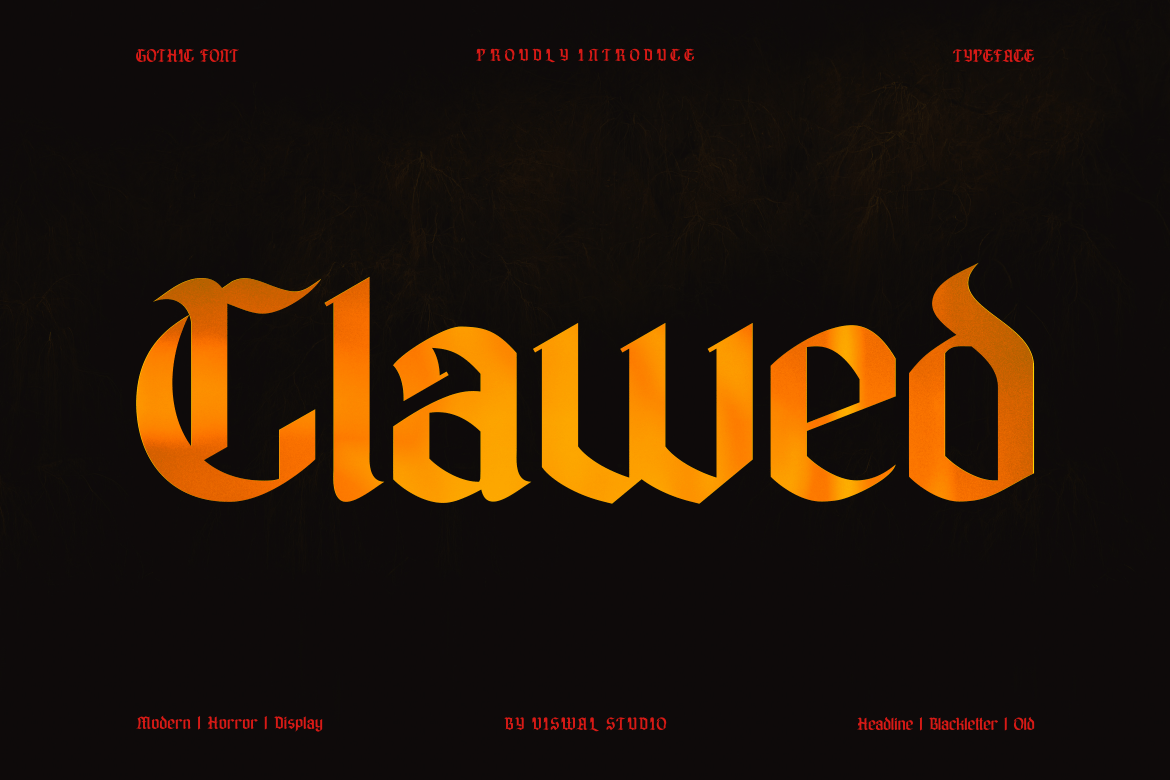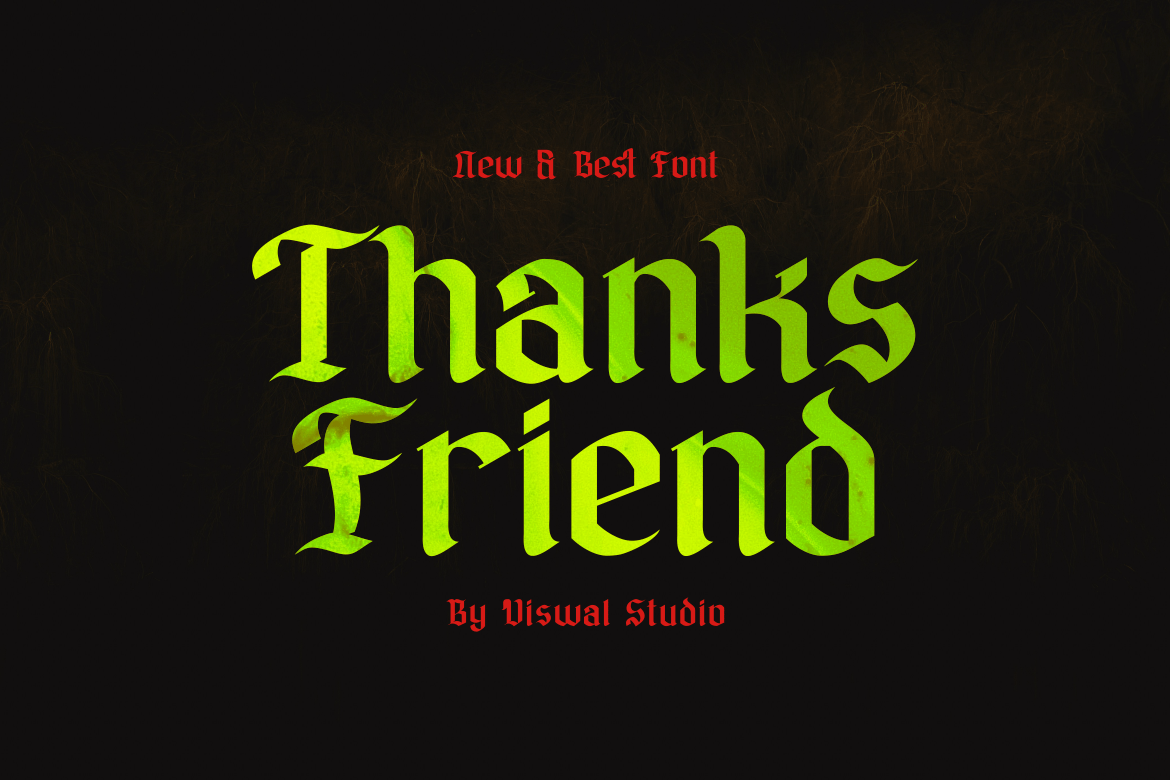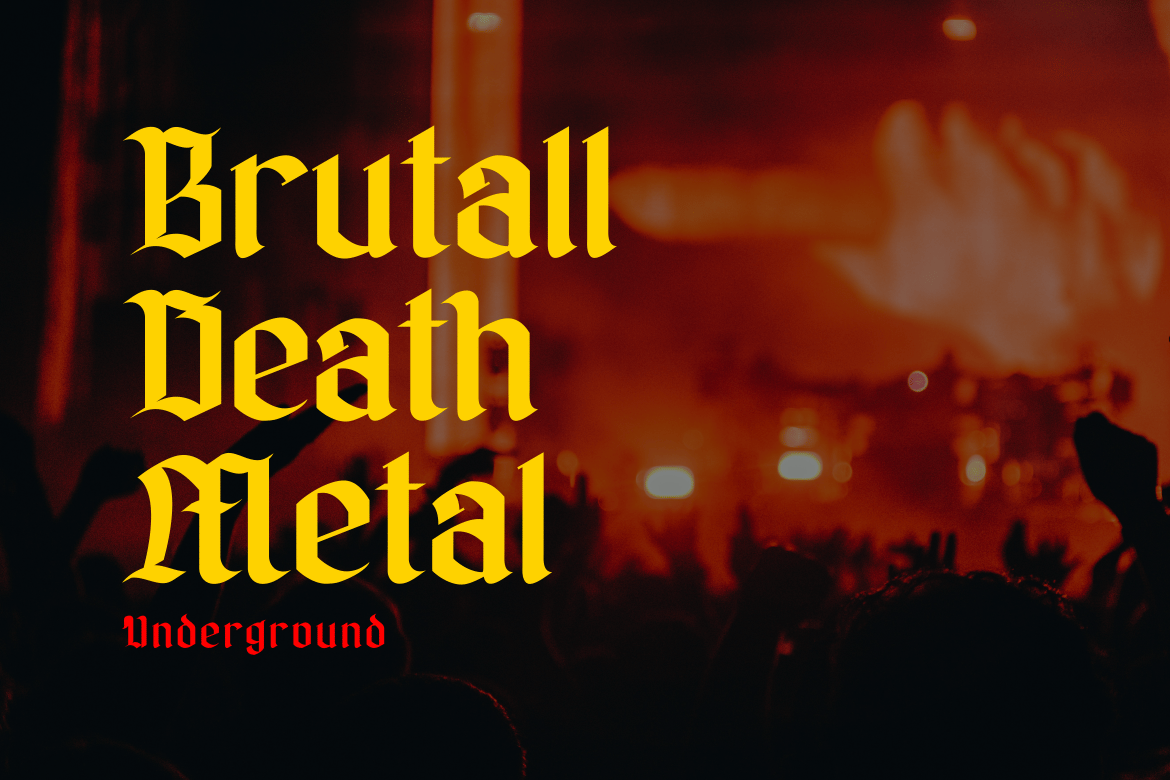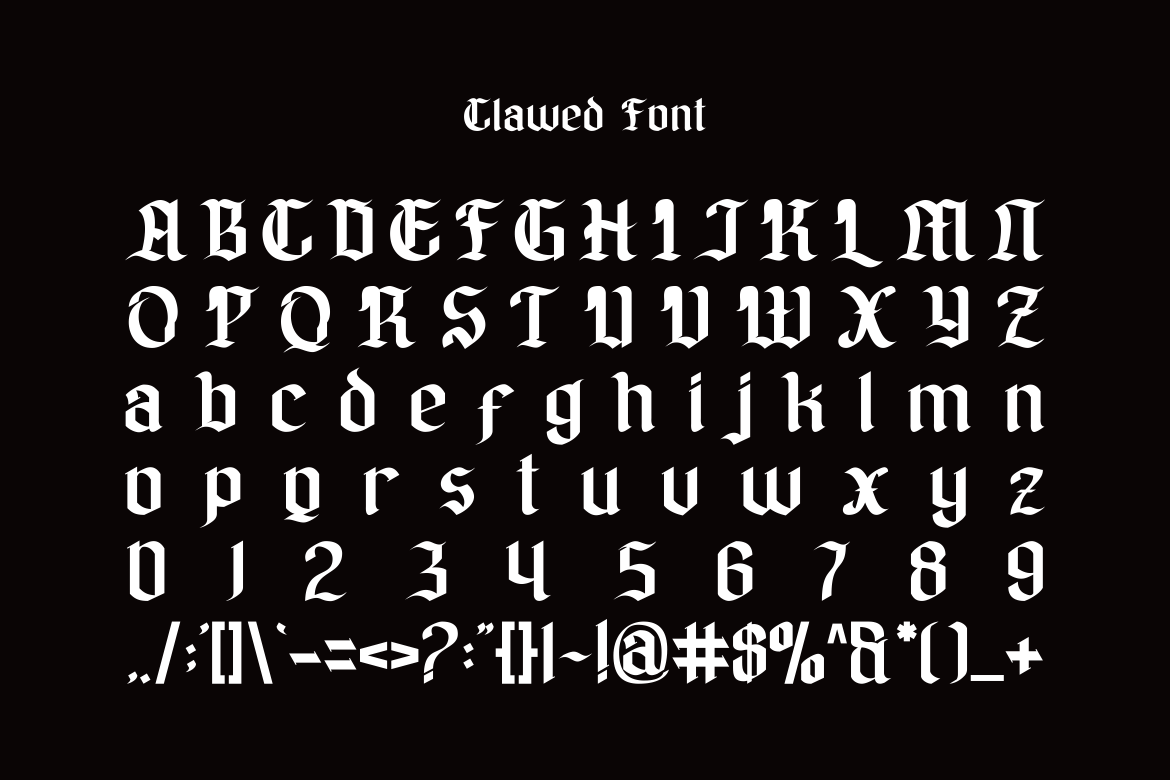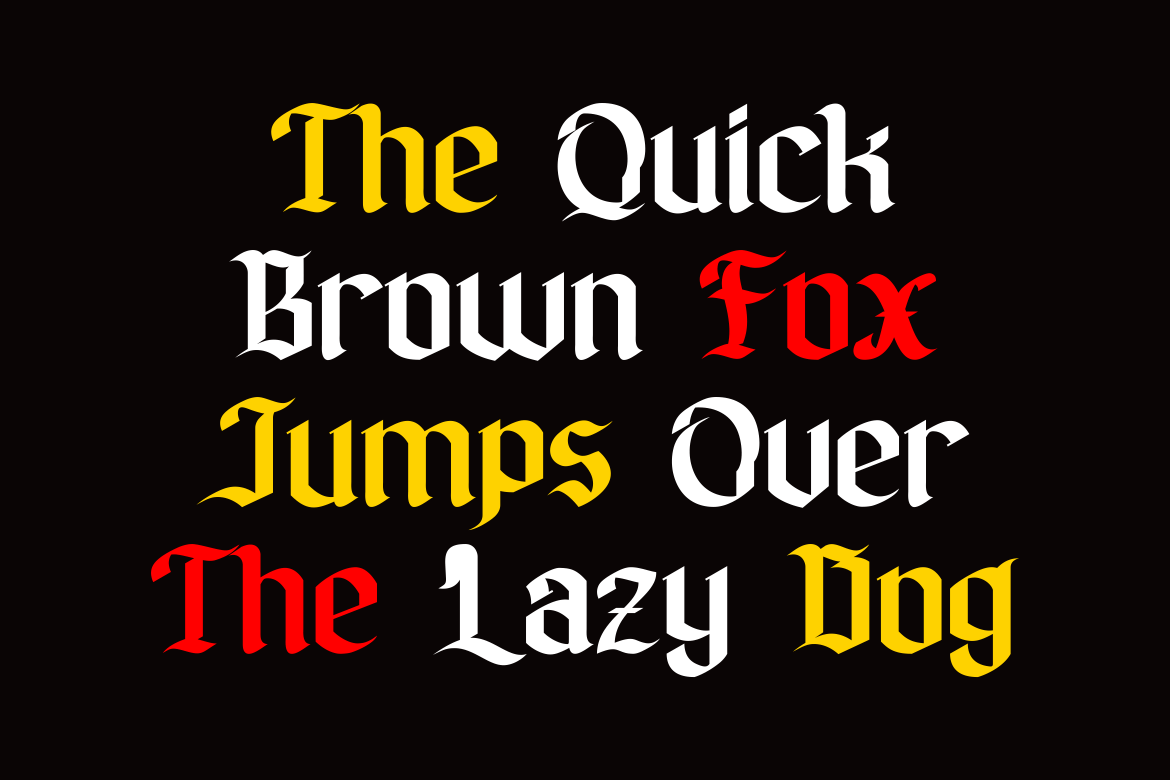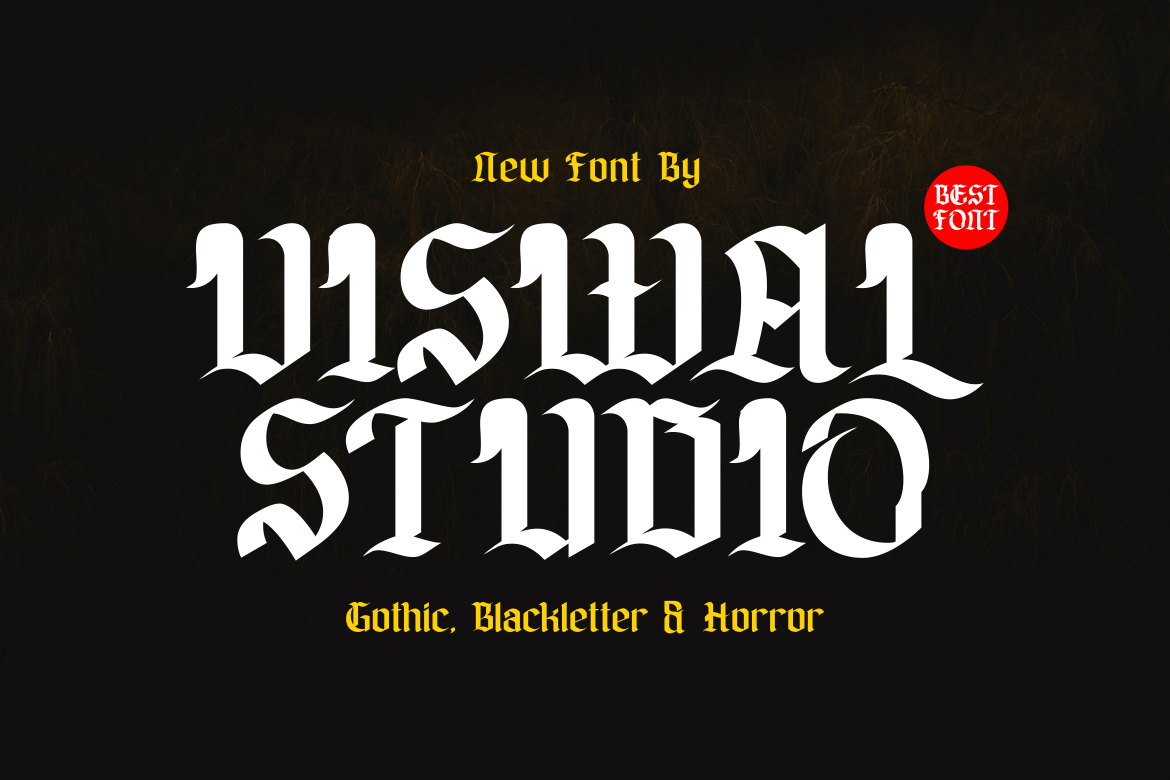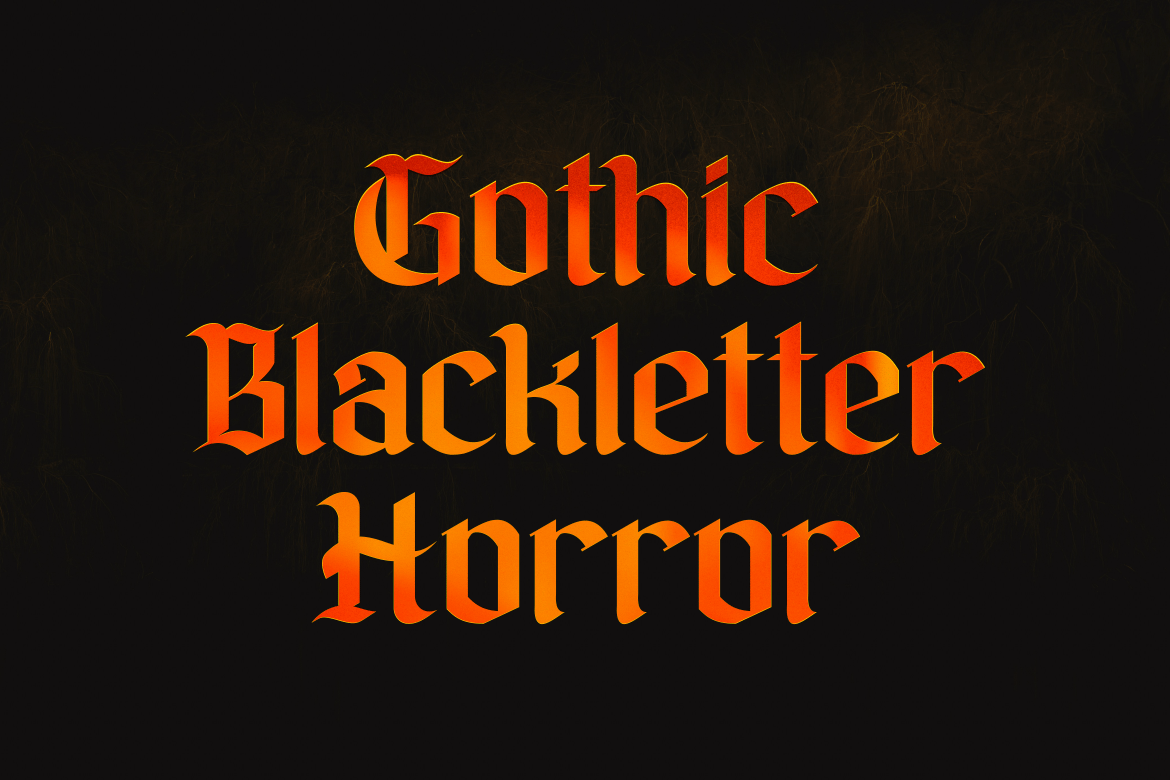
Clawed – Gothic Blackletter Font
Presenting Clawed Is A Gothic Font.
Can Make It Easier To Convey The Message In Your Design. Font Is Suitable For Logo, Labels, Badge, Branding, Magazine, Poster, Title, Gigs, Covers And Etc. Our Fonts Have Uppercase & Lowercase, Numeral & Punctuation, And Opentype Features. For Amazing Designs You Can Mix With Other Fonts As A Complement.